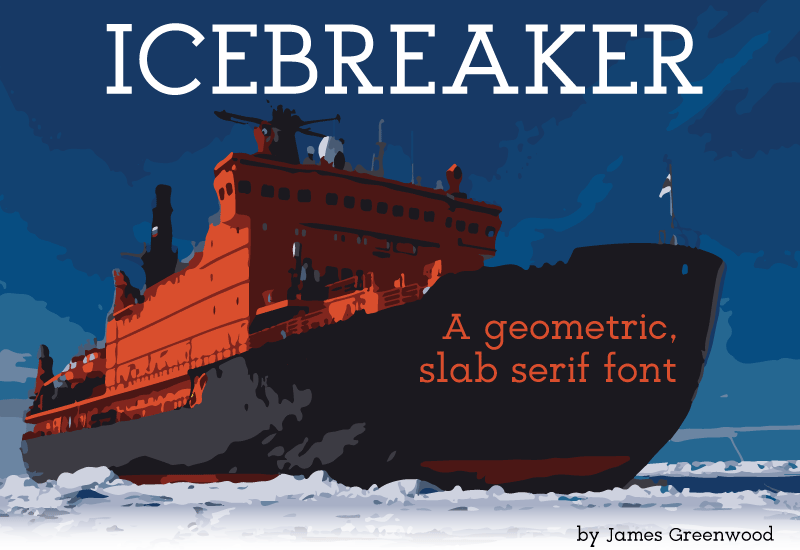
Font name: | Icebreaker |
Author: | James Greenwood |
Note by James Greenwood | |
Icebreaker is a geometric, slab serif font. It was constructed in Adobe Illustrator. |